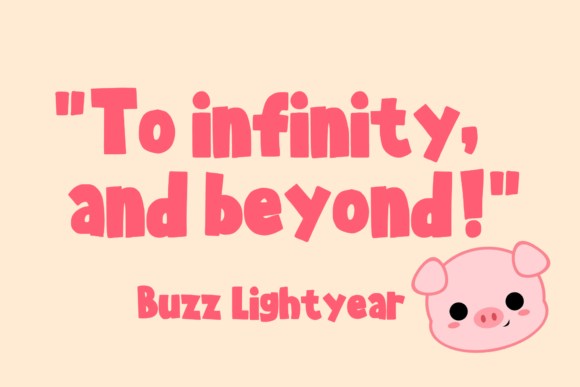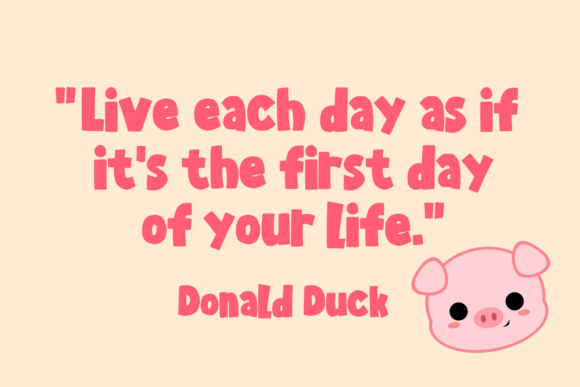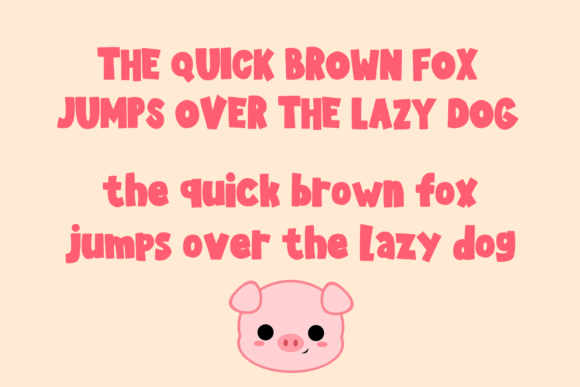
Introduction to Pink Piggy Font
Pink Piggy is a bold and playful display font.
You can use it for anything ranging from t-shirts, kids’ book designs, and greeting cards to stickers and posters, or anything that needs a casual touch Fall in love with its incredibly versatile style, and use it to create lovely designs.
Key Features of Pink Piggy Font
Why Choose Pink Piggy Font?
Pink Piggy Font offers exceptional quality and versatility, making it a valuable addition to your design toolkit. Whether you’re creating for personal projects or commercial use, Pink Piggy Font delivers professional results.